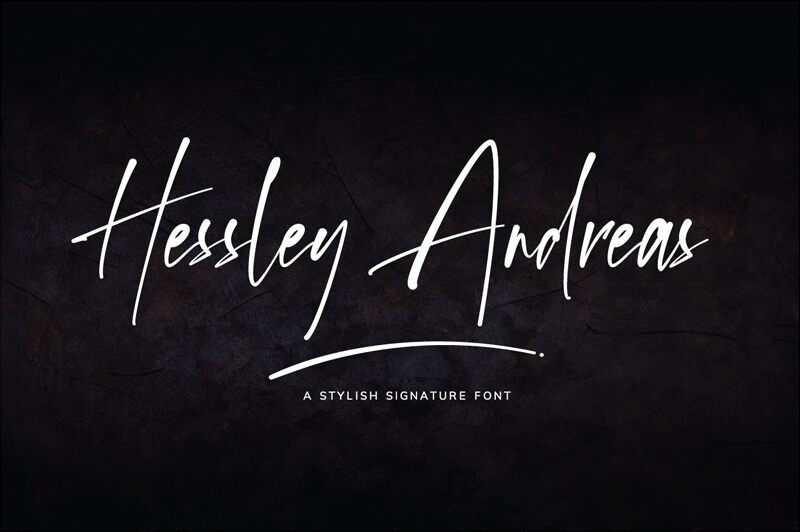
HessleyAndreasRegular
Hessley Andreas is a stunning handwritten signature font designed by David Kasidi. Its light weight adds a touch of elegance to any project, making it perfect for wedding invitations, greeting cards, and branding materials. This font has a natural flow and unique character that adds personality to any design. Its versatility allows it to be used for both formal and informal occasions. Let Hessley Andreas elevate your designs with its sophisticated charm and timeless appeal.